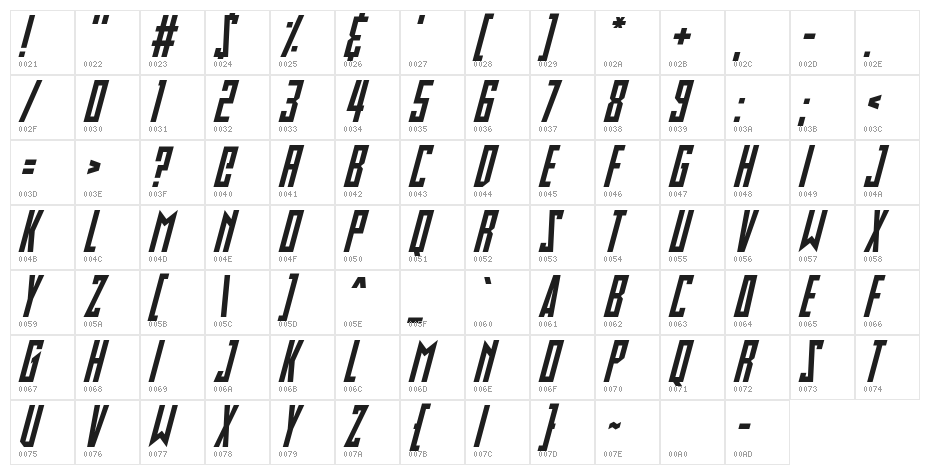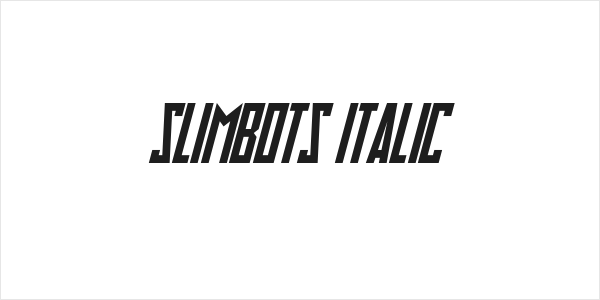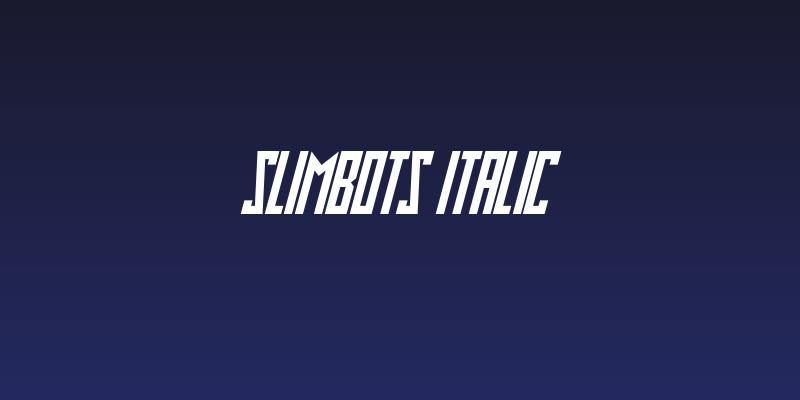
Slimbots Italic Font
Slimbots Italic Description
This font features a bold and dynamic design with a distinct italic slant, giving it a sense of motion and energy. The characters are tall and narrow, with sharp angles and clean lines that create a futuristic and edgy appearance. The uppercase and lowercase letters maintain a consistent style, while the numerals and special characters complement the overall aesthetic. The font's aggressive and modern look makes it suitable for projects that require a strong visual impact.
| Proposed Projects | Ideal for sports branding, tech company logos, video game titles, and dynamic poster designs. |